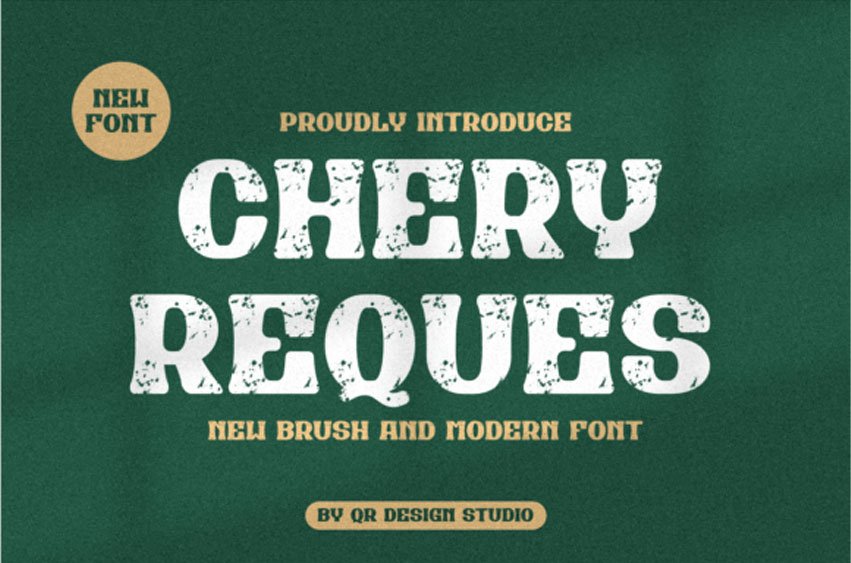
Chery Reques Font is a bold and assertive sans serif font.
No matter the topic, this font will be an incredible asset to your fonts’ library, as it has the potential to elevate any creation.